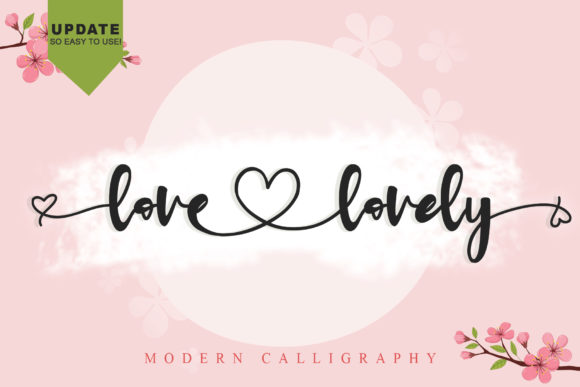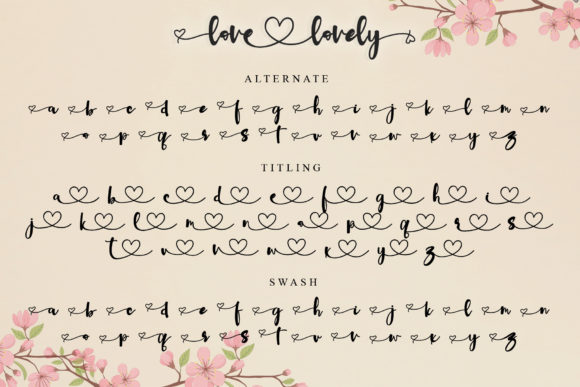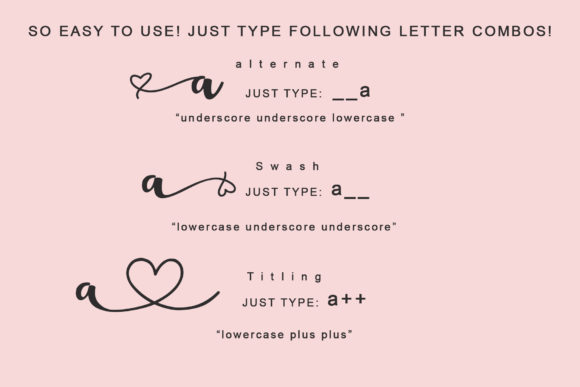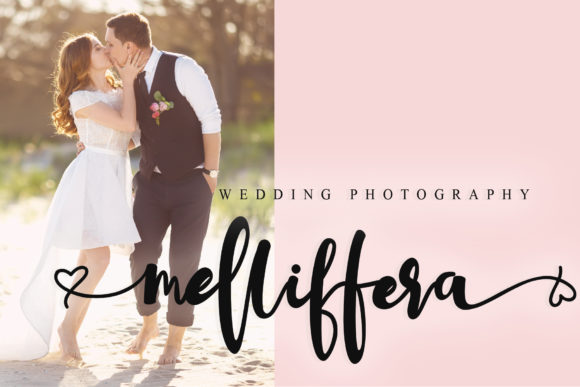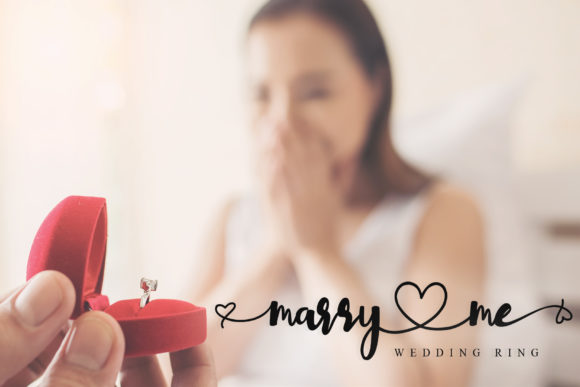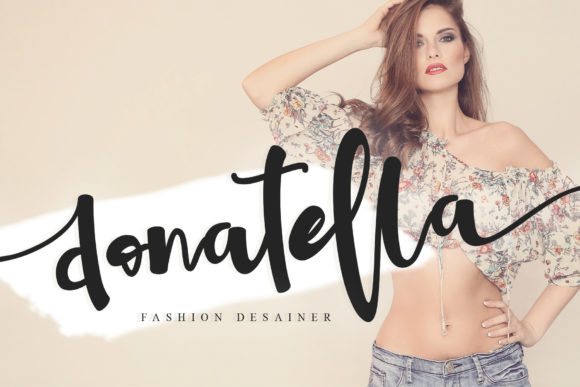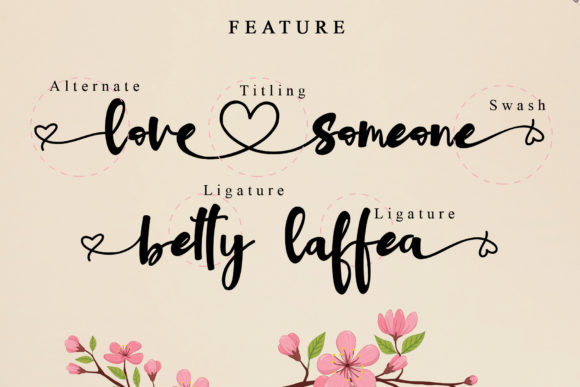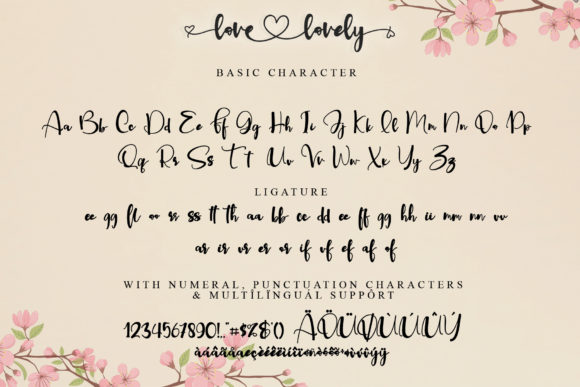
Love Lovely Font
About Love Lovely Font
Love Lovely is a romantic handwritten font. It features amazing heart-shaped titling. Use it to add a special touch to your projects!
Fall in love with its authentic feel and use it to create gorgeous wedding invitations, beautiful stationary art, eye-catching social media posts, and cute greeting cards, and many more.